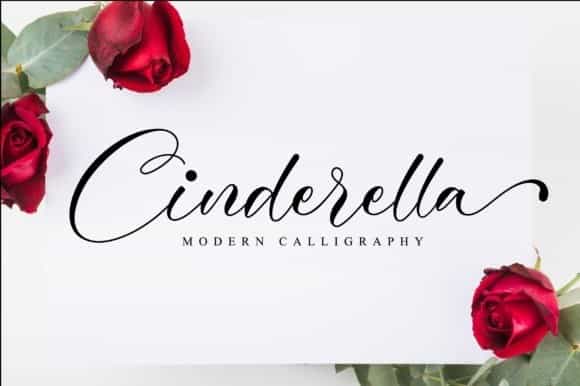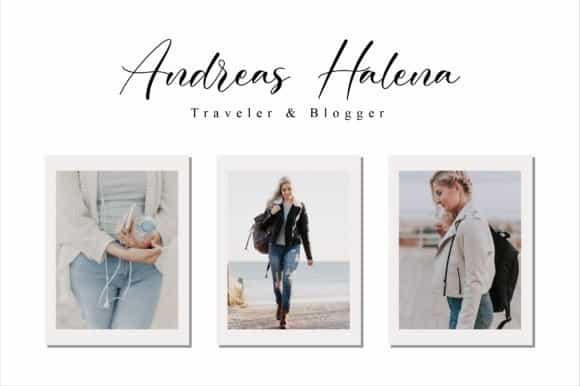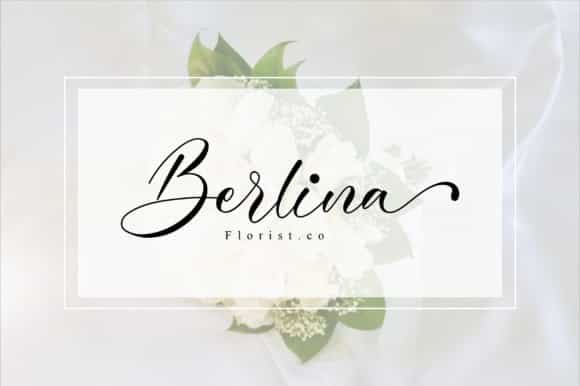
Cinderella Font is a perfect choice for your branding, wedding invitations, magazines, mugs, business cards and quotes. You can use it on many other big projects as well because this font will make them look very beautiful. Cinderella has the OpenType feature and many glyphs. The more the letters you have, the easier it will be for you to pick and choose your favorite letter.